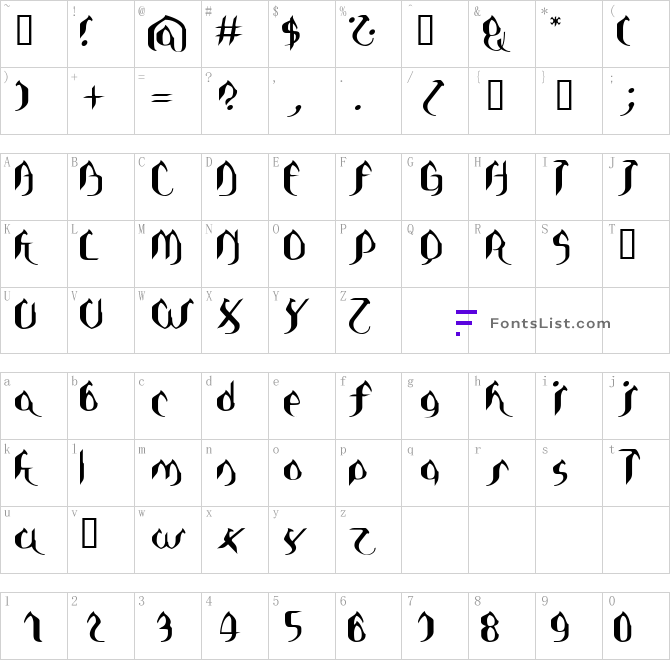
- Font Name:Asie
- Subfamily:Macromedia Fonographer 4.1J Asie Normal
- Full Name:Asie Normal
Asie-Normal.ttf is a very beautiful artistic font, Asie-Normal.ttf is widely used in the design and printing of various books and pictures,Asie-Normal.ttf has a strong visual impact,Asie-Normal.ttf is a commonly used font in newspapers, magazines and books, and is used in posters, e-commerce Poster design, store design, logo design, font design and other fields.Asie-Normal.